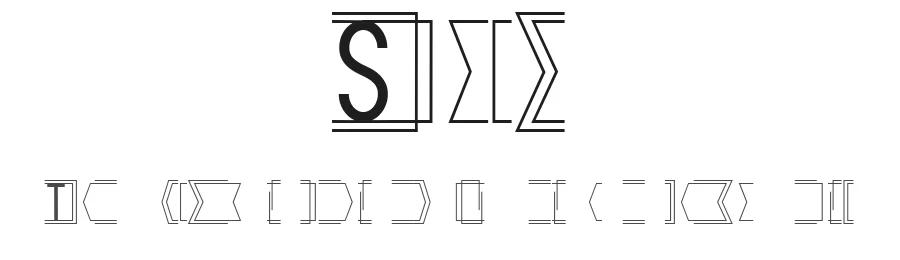
About CherryMoon Font
CherryMoon is a decorative font designed by Sebastian Suarez. It includes 236 glyphs, a regular weight, TTF (TrueType) format, and 209 languages. CherryMoon is free to download; check the license details on this page before commercial use. Decorative fonts like CherryMoon work best for logos, posters, packaging, and standout headlines.
CherryMoon Font is a decorative font that shines as a display or heading face. Pair it with a clean sans-serif or serif font for body text β the contrast creates a clear hierarchy while the two styles stay balanced and easy to read.
CherryMoon Font
CherryMoon Font is a decorative typeface by Sebastian Suarez, ideal for logos, invitations, branding, and creative projects.